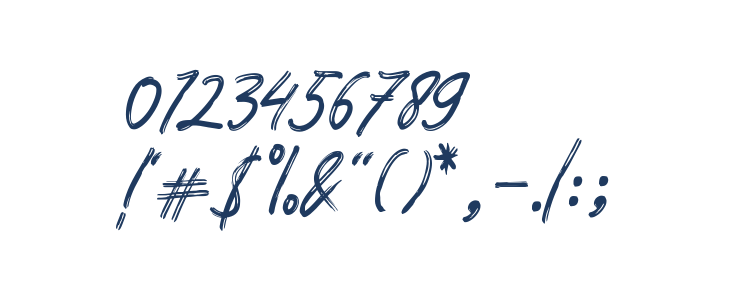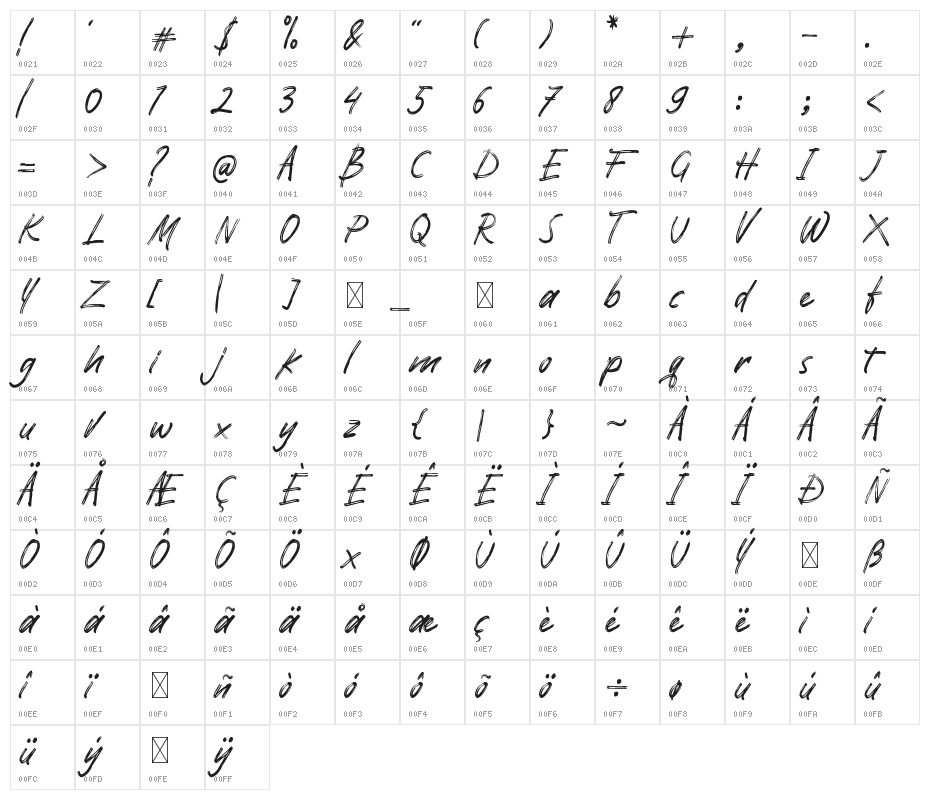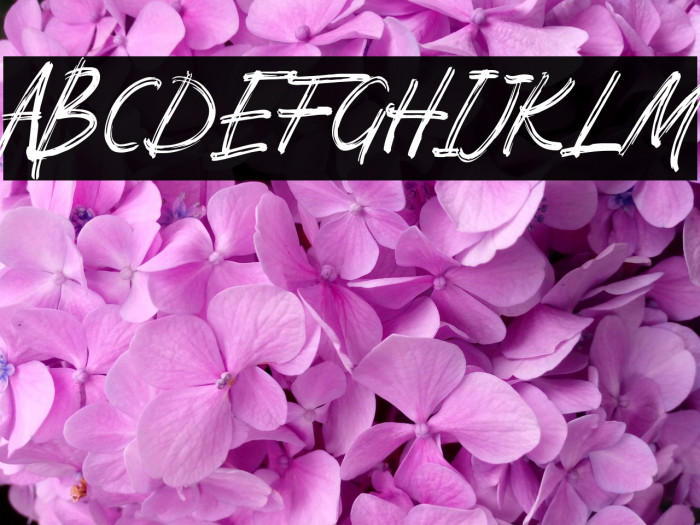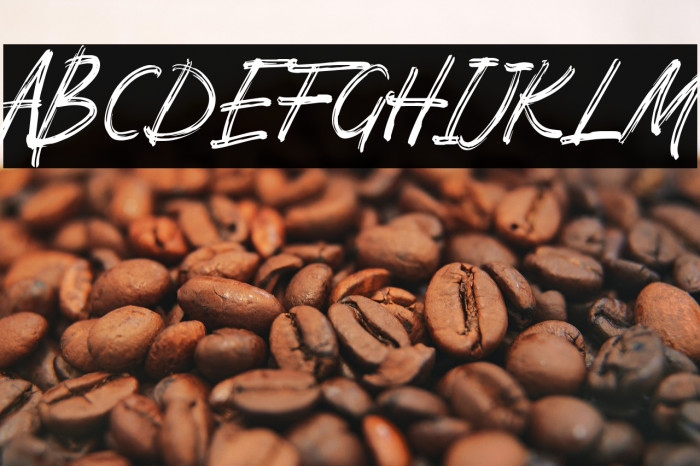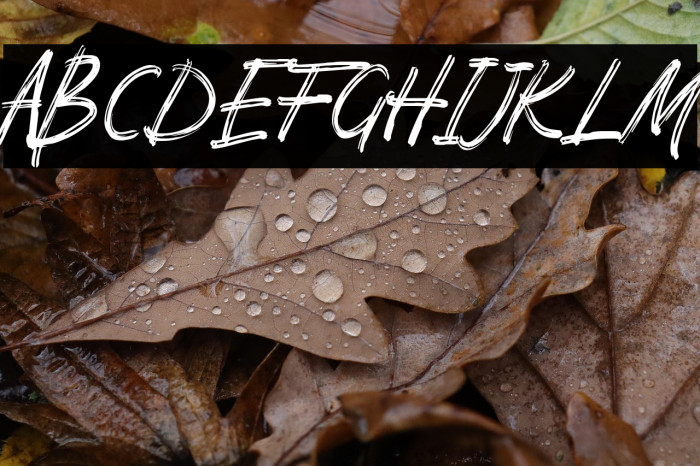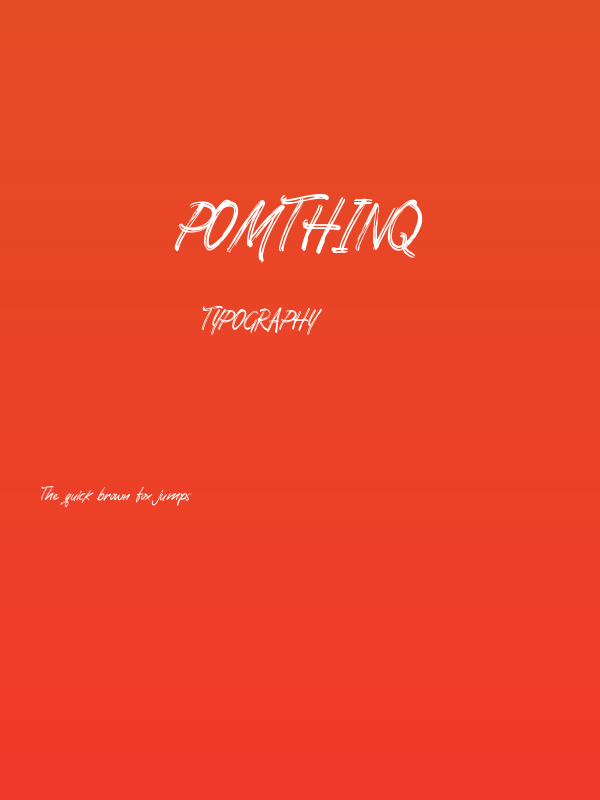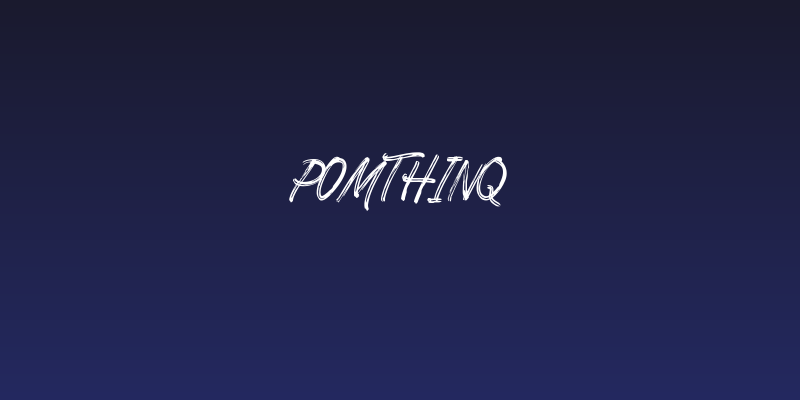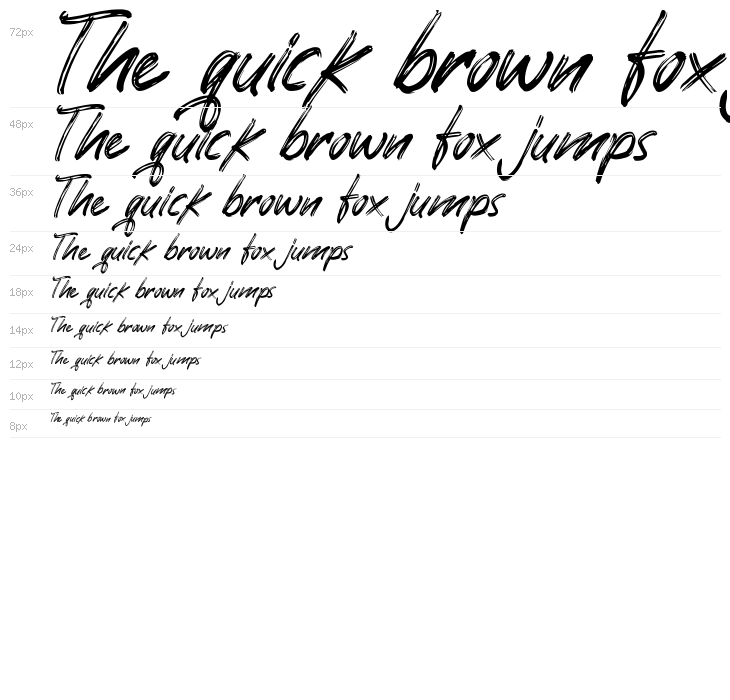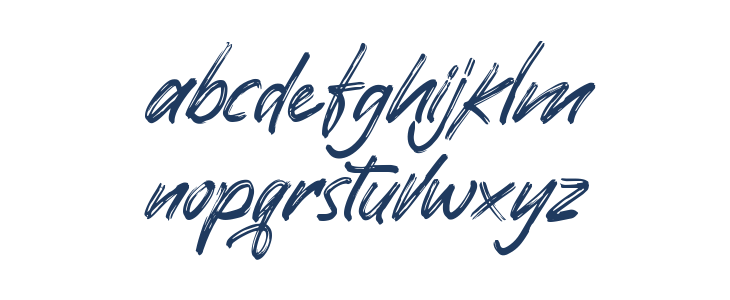
Pomthinq Font
Pomthinq Description
This font exudes a dynamic and energetic feel, characterized by its bold, brush-like strokes that give it a hand-drawn appearance. The letters are slightly slanted, adding a sense of movement and fluidity. The uppercase and lowercase letters maintain a consistent style, with exaggerated curves and varying stroke widths that create a lively texture. The numbers and special characters follow the same expressive style, making the font suitable for creative and artistic projects. Its unique, informal look makes it stand out, perfect for designs that require a personal touch.
| Proposed Projects | Ideal for posters, album covers, artistic branding, and creative social media graphics. |